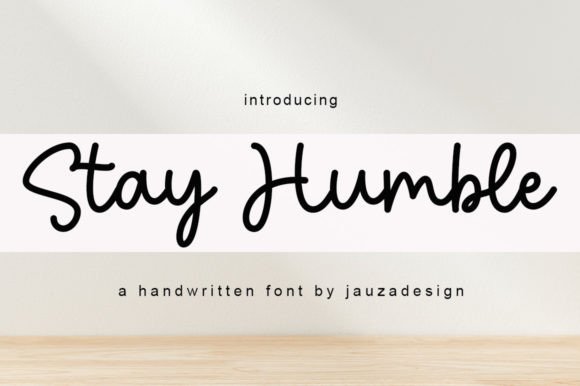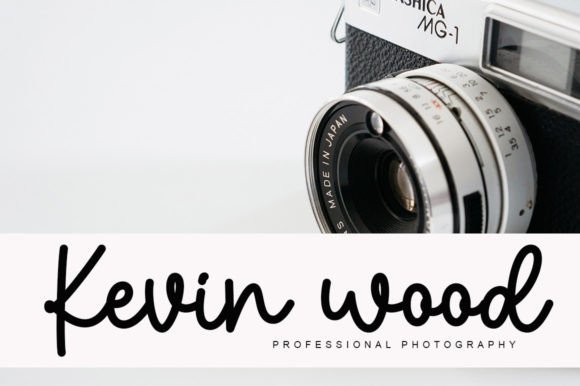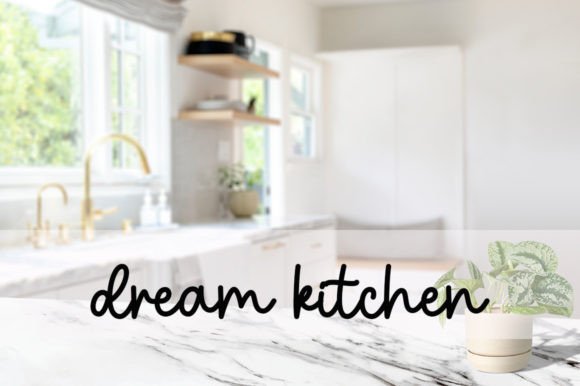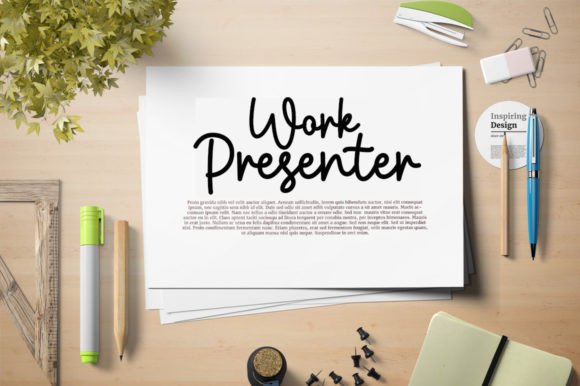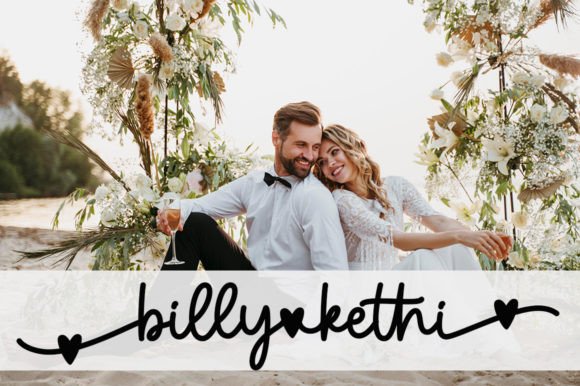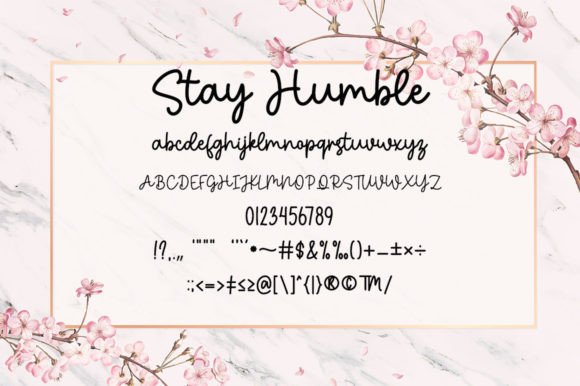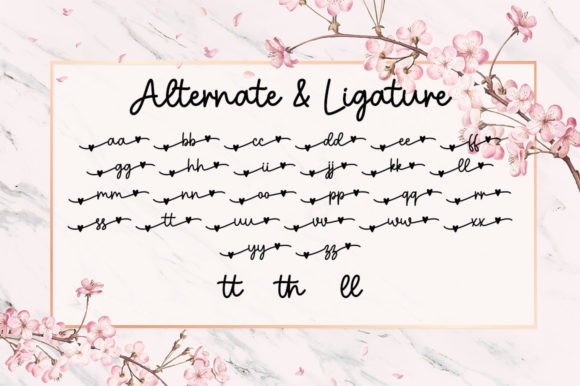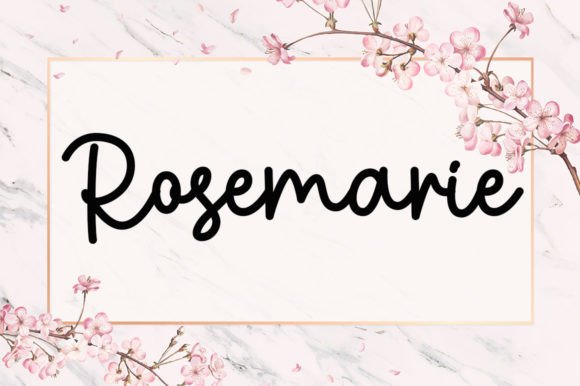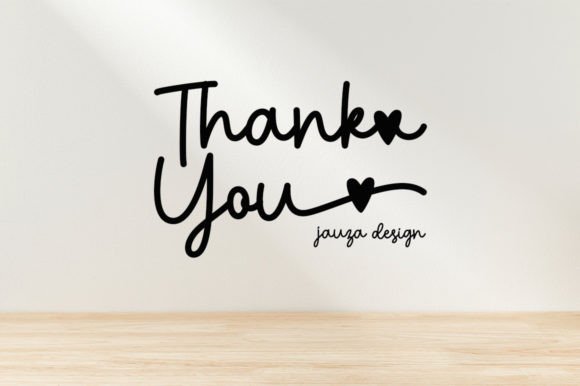
Stay Humble Font
About Stay Humble Font
Introducing Stay Humble, a beautiful and delicate script font that radiates class, elegance, and a modern aesthetic. This versatile font is well-suited for a range of applications, including logos, branding, invitations, stationery, wedding designs, social media posts, and more. Its PUA encoding allows for easy access to all the glyphs and swashes, providing flexibility in your design process.
The classy and elegant appearance of Stay Humble makes it a standout choice for creating sophisticated and refined visual elements. Whether you’re crafting a logo that exudes professionalism, designing wedding invitations that demand attention, or creating a cohesive brand identity, Stay Humble adds a touch of modern elegance to your projects.
The font’s delicate script style contributes to its overall beauty, creating a harmonious flow in each character. The modern look of Stay Humble ensures that it remains relevant and visually appealing across various design contexts.
What sets Stay Humble apart is its PUA encoding, which unlocks a wealth of glyphs and swashes. This feature empowers you to explore different stylistic elements, allowing for greater creative freedom and customization in your designs.
In summary, Stay Humble is more than just a font; it’s a design asset that brings beauty, delicacy, and modern elegance to your projects. Download Stay Humble now and witness how it can elevate your logos, branding, invitations, and more. With its classy script style and PUA encoding, Stay Humble is ready to become a valuable addition to your design toolkit, offering flexibility and sophistication in every stroke.